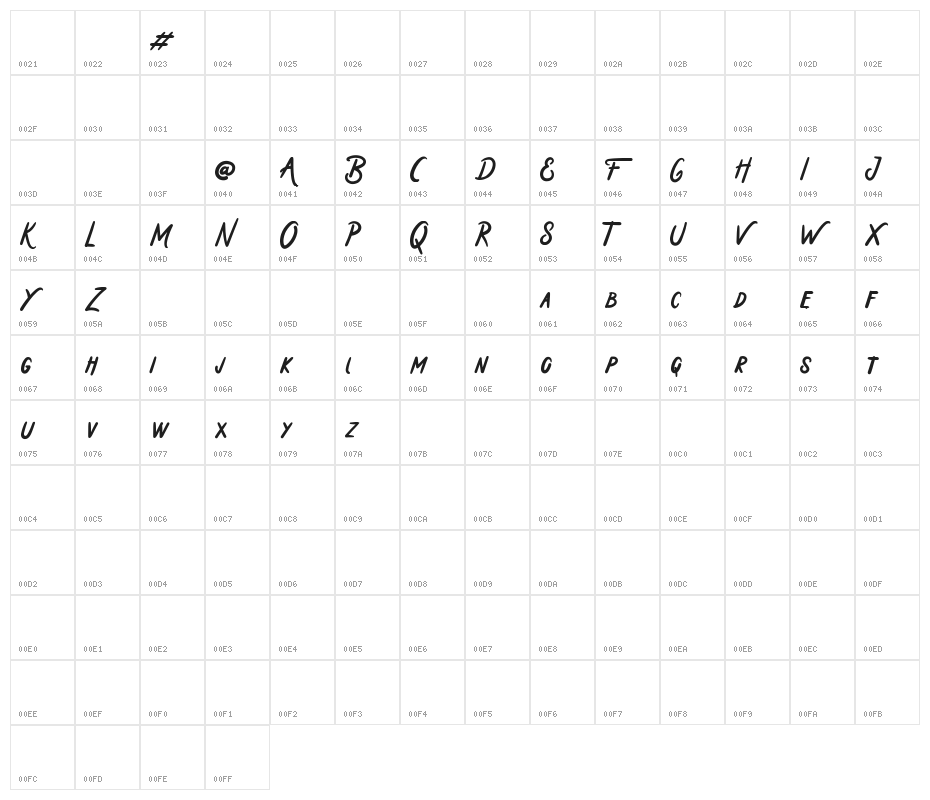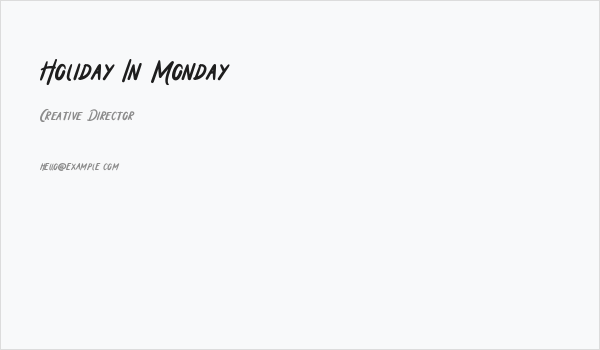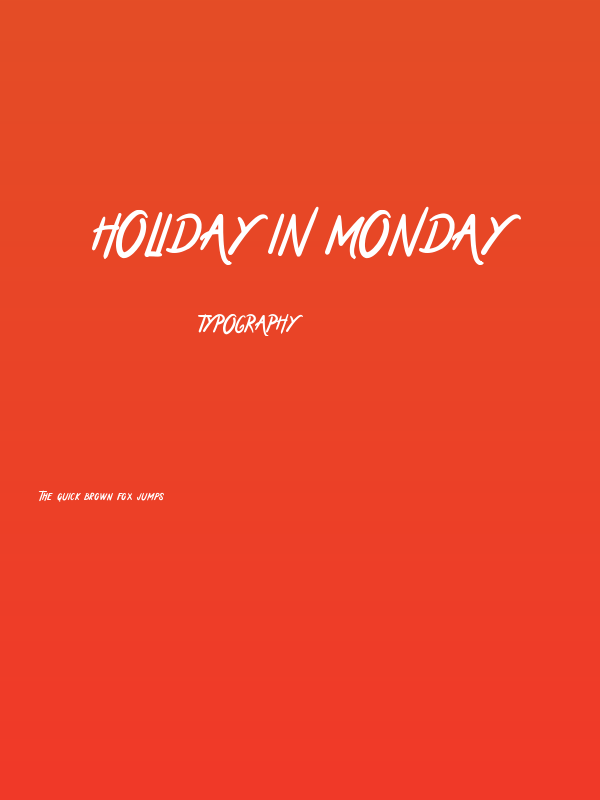
Holiday In Monday Font
Holiday In Monday Description
This font features a lively and energetic script style, characterized by its bold and fluid strokes. The uppercase letters are dynamic and slightly slanted, giving a sense of movement and spontaneity. The lowercase letters maintain the same playful and cursive quality, creating a cohesive and harmonious look. The numbers and special characters are designed to match the overall aesthetic, ensuring consistency across all text elements. The font's handwritten appearance makes it ideal for projects that require a personal and informal touch.
| Use Case | Logos, Headlines, Invitations |
| Proposed Projects | Ideal for greeting cards, invitations, branding, and social media graphics. |